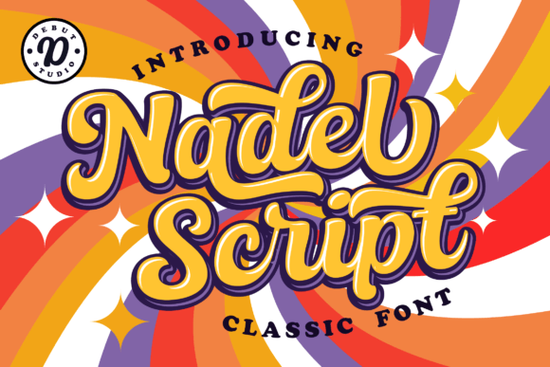
If you're looking for a script font that blends vintage charm with modern ease of use, Nadel Script Font is worth a closer look. Designed with the elegance of early 20th-century calligraphy in mind, it’s especially useful for designers, small business owners, and crafters who want polished, professional-looking typography without spending hours tweaking letter spacing or layer alignment.
What makes Nadel Script stand out is its layered structure. Instead of relying on drop shadows or effects added in post-production, this font includes built-in base, shadow, and highlight layers that you can toggle on or off depending on your project. That means you get dimensional, eye-catching text right out of the box perfect for wedding invitations, boutique packaging, branding logos, or even print-on-demand mugs and T-shirts.
How does Nadel Script save time in real projects?
Many script fonts require manual kerning or tracking adjustments to look balanced, especially when used at larger sizes. Nadel Script sidesteps that hassle thanks to smart OpenType features that automatically fine-tune spacing as you type. For busy solopreneurs or hobbyists working in Canva, Adobe Illustrator, or Affinity Designer, that’s a meaningful time-saver.
Plus, because it’s rooted in classic penmanship styles, it pairs beautifully with minimalist layouts or rustic design themes. You don’t need ornate backgrounds or extra embellishments the font itself carries enough character to hold attention.
What kinds of projects work best with this font?
Nadel Script shines in any context where warmth, personality, and a handcrafted feel matter. Think:
- Custom greeting cards or holiday stationery
- Branded product labels for small-batch goods (like candles, soaps, or preserves)
- Social media quotes or promotional graphics for lifestyle businesses
- Monogrammed apparel or home decor items
It’s also surprisingly versatile across industries. A bakery might use it for menu headers, while a wedding planner could apply it to seating charts or welcome signs. The key is using it intentionally usually as a headline or accent font, not for long blocks of body text.
How does it compare to other script fonts?
If you’ve browsed Creative Fabrica’s script collection, you’ve likely seen options like Milk Peach, which leans into soft, bubbly curves, or Strawberry Smoothie, known for its playful bounce. Nadel Script takes a more restrained approach it’s less whimsical and more refined, making it ideal when you want sophistication over cuteness.
For those who prefer slightly bolder strokes, Brittany offers strong contrast and dramatic swashes, while Back to School Handwritten mimics casual pen-on-paper texture. And if you’re drawn to delicate, airy scripts, Nadel Script sits comfortably in that elegant middle ground structured but fluid, classic but not stiff.
Tips for getting the most out of layered fonts
Layered fonts like Nadel Script require a bit of setup, but the results are worth it. Here’s how to make the process smoother:
- Work in vector software when possible (like Illustrator or Inkscape) so you can easily separate and recolor each layer.
- Start with the base layer alone to test readability before adding shadows or highlights.
- Use contrasting colors between layers like deep navy base with a soft gold highlight to create subtle luxury effects.
- Avoid over-layering; sometimes just base + shadow is enough. More isn’t always better.
Whether you’re designing your first Etsy shop banner or refreshing your brand’s visual identity, Nadel Script offers a reliable blend of beauty and functionality. It doesn’t shout it whispers with confidence, letting your message take center stage while still feeling thoughtfully crafted.